The unity is one of the important rules that you have to consider when creating new design for website, interface or application. However, when you plan for website design, there should be a good library in hand or you can reach to make the website design unified to one style.
When you design grunge style website, you will need some resources that can help you achieve the total unity of the site such as grunge textures, grunge icons, grunge brushes , grunge effects and grunge fonts.
Grunge Site Planning
After preparing your content, you have to put your ideas as a plan for your design. For instance, you have to plan which resources is the best to use and works fine with other resource. If you need, you may put on yout design and time plan the possibility that you may need to create a resource from scratch.
This second step is to put your ideas on a paper and start selecting the suitable resources that meet with your idea need and requirements.
Start to Play
First, things may not go like you plan in your mind and some resources may not fit well in the real computer design, so it is a good idea to spend some time playing with different resources to set the best combination of resources to use. Use these resources to build a mock-up for your design as a whole and then have another look to see if things really fit with each other in the design.
Finalize Your Design
Share the mock-up with your client or friends to get other ideas about how the website is user friendly. Also, you may need to ask people to see if the design really support the content not covering it, this is the common problem when designer care much about the design without considering the content, this make the site lose its main idea.
Here Are the 1000+ Resources for Your Library
Now, I would like to share with you more than 1000 high quality grunge resources that you can use for your site such as grunge textures, icons, brushes and fonts that I hope you enjoy it. And if you are one of the fans of the grunge style, I think you may like to have a look at:
Lets start with those amazing grunge icons that can be used to promote your site in social networking for with grunge style that fit with you grunge site design.
Social grunge icons (6 icons)
108 Free Retro Grunge Stripes Social Media Icons (108 icons)
108 Retro Grunge Stripes Social Media Icons
Black Ink Grunge Stamps Textures Icons Social Media Logos (154 icons)
154 Black Ink Grunge Stamp Texture Social Networking Icons.
Grunge Warning Stripes Social Networking Icons (154 icons)
154 Grunge Warning Stripes social networking icons.
Amazing collection of the Grunge Warning Stripes social networking icons.
Set of social grunge icons (14 icons)
14 high quality social grunge icons.
Free Grunge Style Social Bookmarking Icons (6 icons)
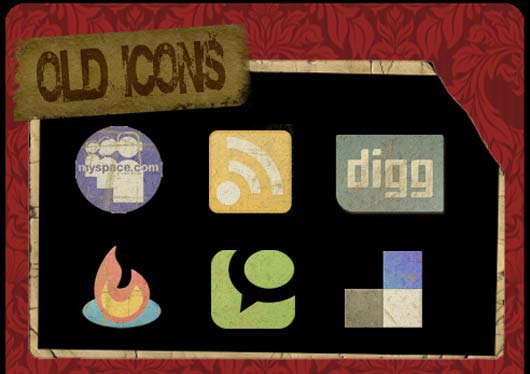
6 high quality web icons .Old grunge icon set modified by Outlaw Design. Composed of grungy looking social bookmarking icons.
High Quality Free Grunge Textures
Textures are important in the grunge style design, it gives you the old style effect. Here are some high quality textures that will help you create your design easily and fast.
The Dead Marshes
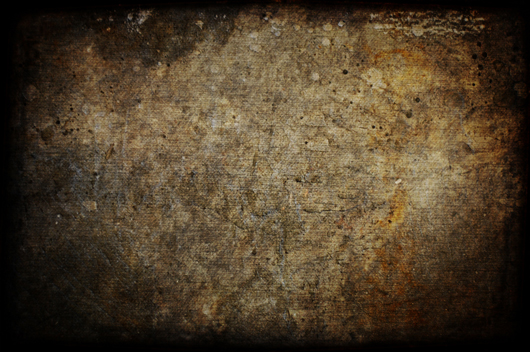
This texture was created using different photographs and different layer blending modes in Photoshop.
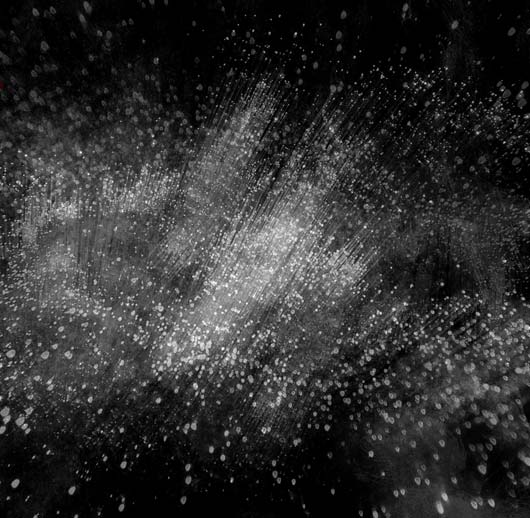
Nargothrond
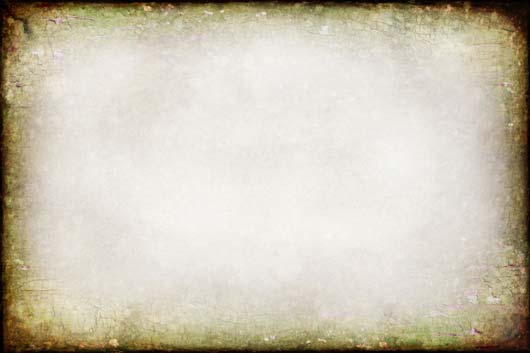
This texture was created using different photographs and different layer blending modes in Photoshop.
Grungy Watercolor Textures (4 Textures)
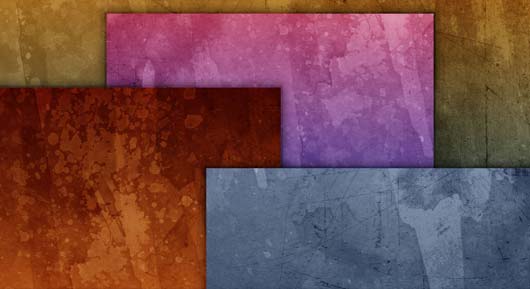
Grungy Watercolor Textures and a Layered PSD.
Season of Winter
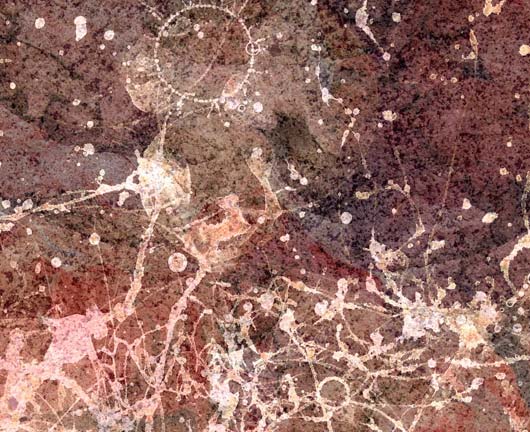
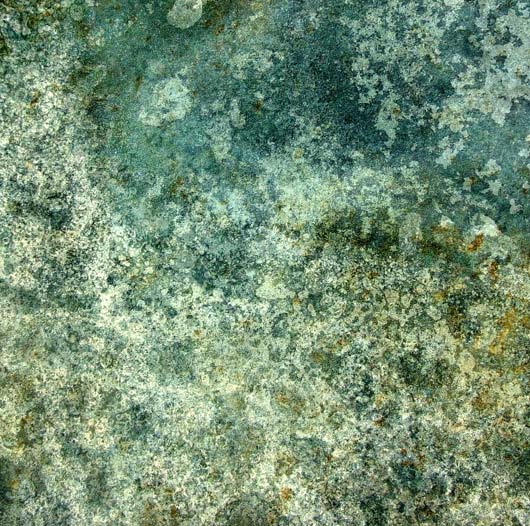
Grunge Background Textures (5 Textures)
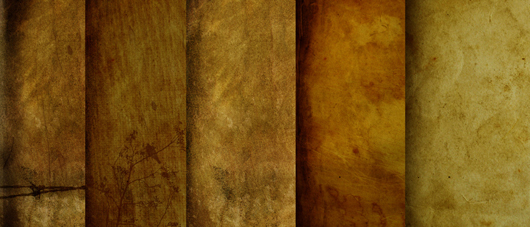
5 x background textures of the grunge variety.
Grunge Texture 1
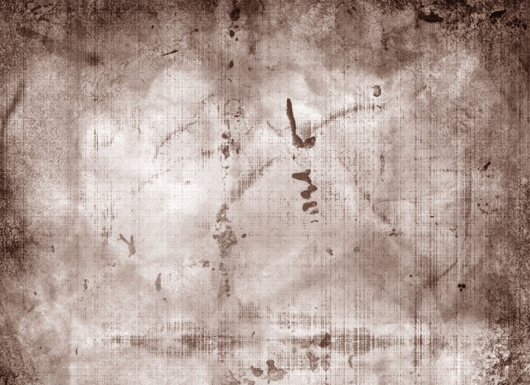
Luminous Grunge Textures (4 Textures)
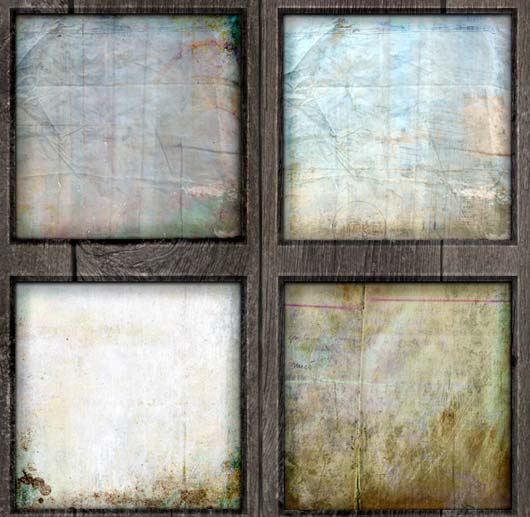
Nice scratchy, grungy textures- but with a luminous wash of pearly, opalescent colors- creating an interesting contrast between the distressed, grungy quality of the texture & the whimsical colors.
3 Grunge Textures from FreeStockTextures.com
3 hi-res grunge textures: concentrate, wall, rust, peeling, wood… Hope you find them useful.
Grunge Fonts
Along with the grunge texture and icons, fonts can help getting a real grunge effect on your site by choosing the suitable font for this purpose. Here are a collection of grunge friendly fonts.